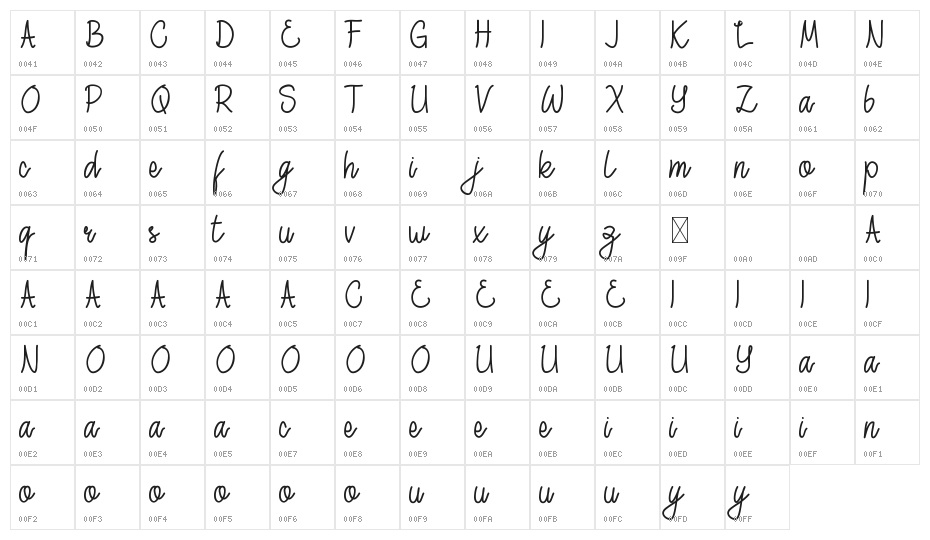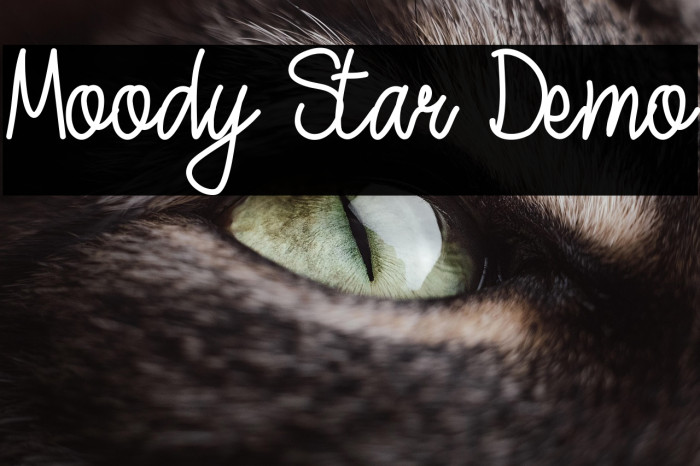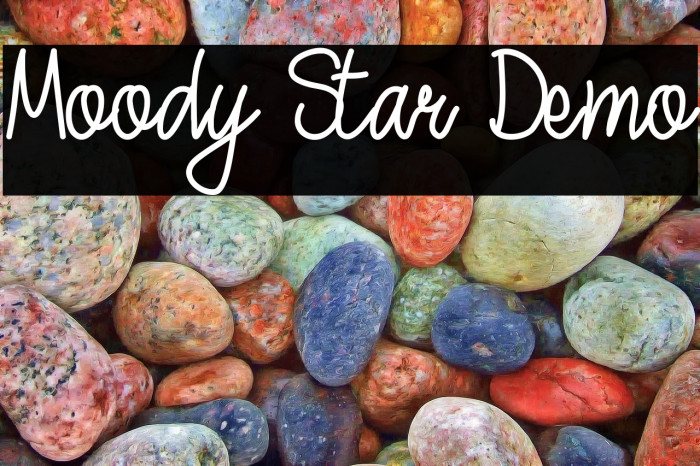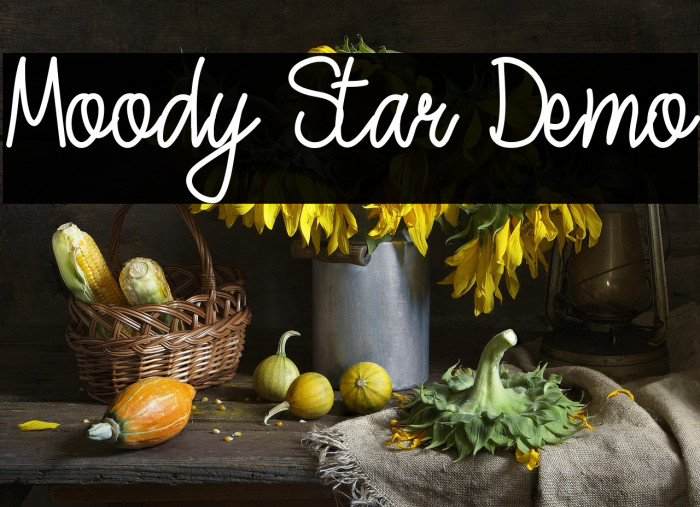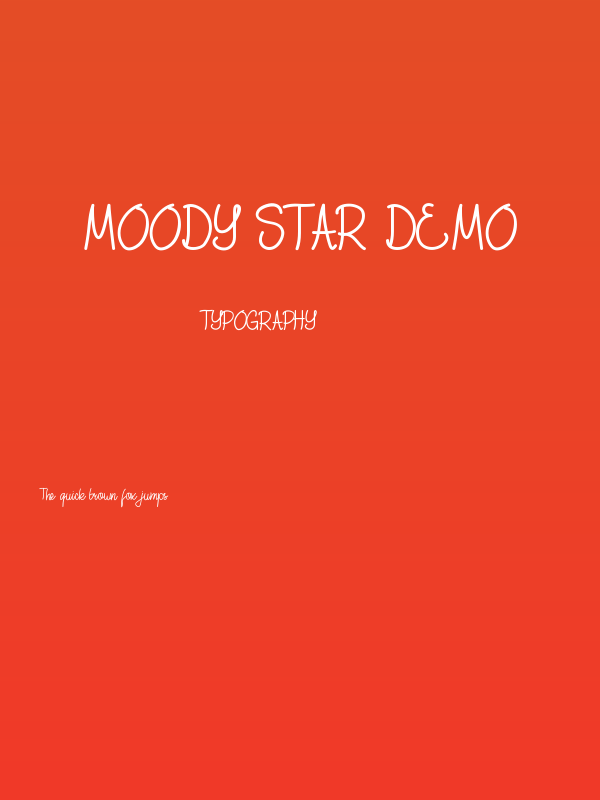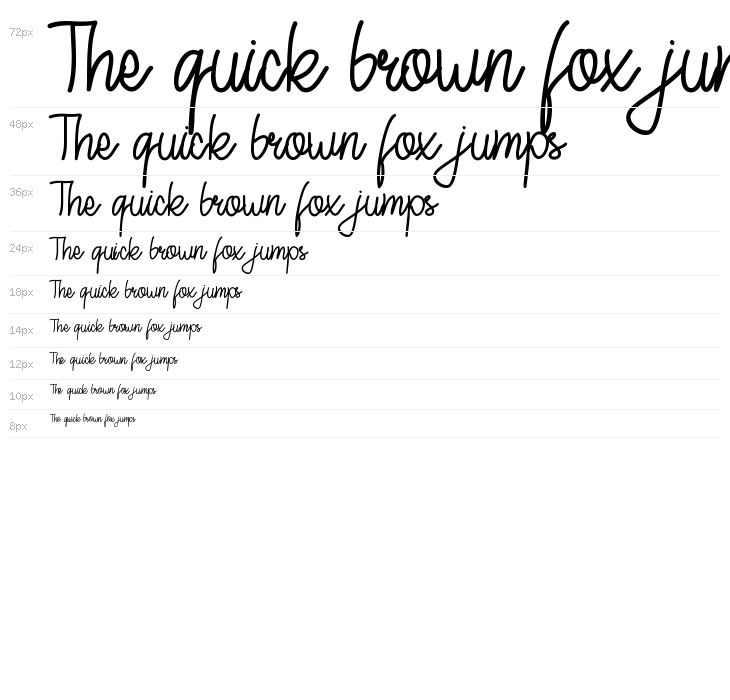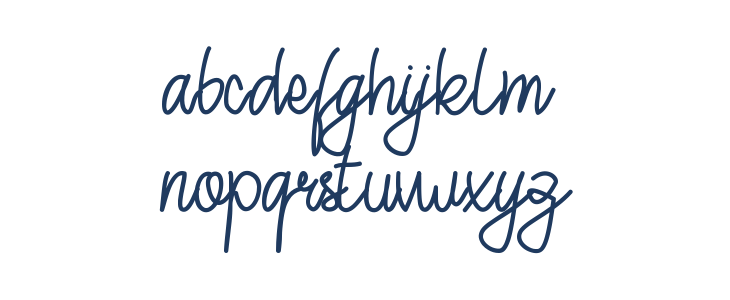
Moody Star Demo Font
Moody Star Demo Description
This font features a playful and whimsical handwritten style, characterized by its flowing and connected letterforms. The uppercase letters are bold and slightly rounded, giving them a friendly and approachable appearance. The lowercase letters maintain a consistent flow, with some letters featuring loops and curls that add to the font's charm. The overall design is casual yet stylish, making it suitable for a variety of creative projects. The numbers and special characters are designed to match the playful aesthetic, ensuring a cohesive look across all text elements.
| Proposed Projects | Ideal for greeting cards, invitations, personal branding, and creative projects that require a friendly and approachable touch. |